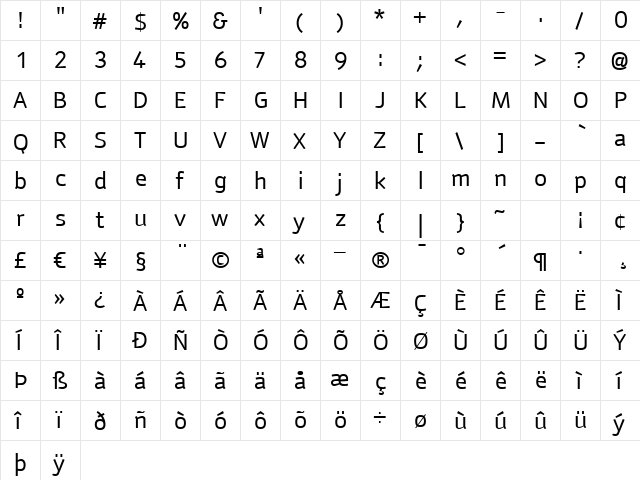
Anomoly Regular
Design Context for Anomoly Typeface
Anomoly takes a measured approach to typography — its balanced proportions and neutral character make it a reliable workhorse for both digital and print work.